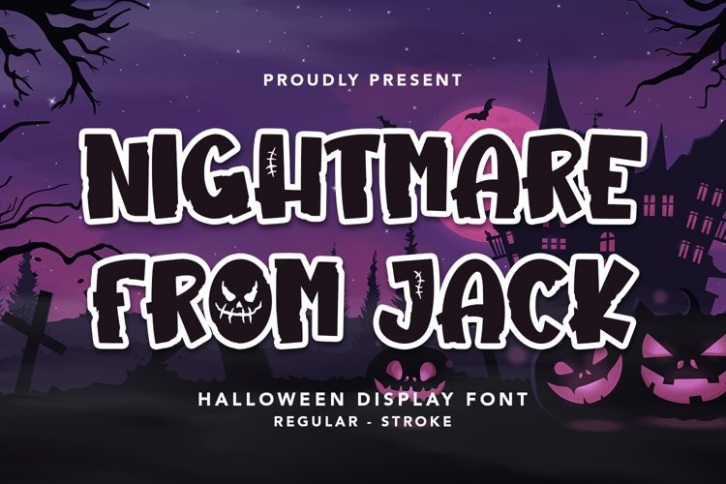
Nightmare From Jack is a trendy and unique font with an authentic style. It was designed by plusstore and it's a great choice for creative people who need such a font. It was released on September 23, 2022 and the file size is 6.54 MB. Nightmare From Jack will add an organic vibe to any design idea!